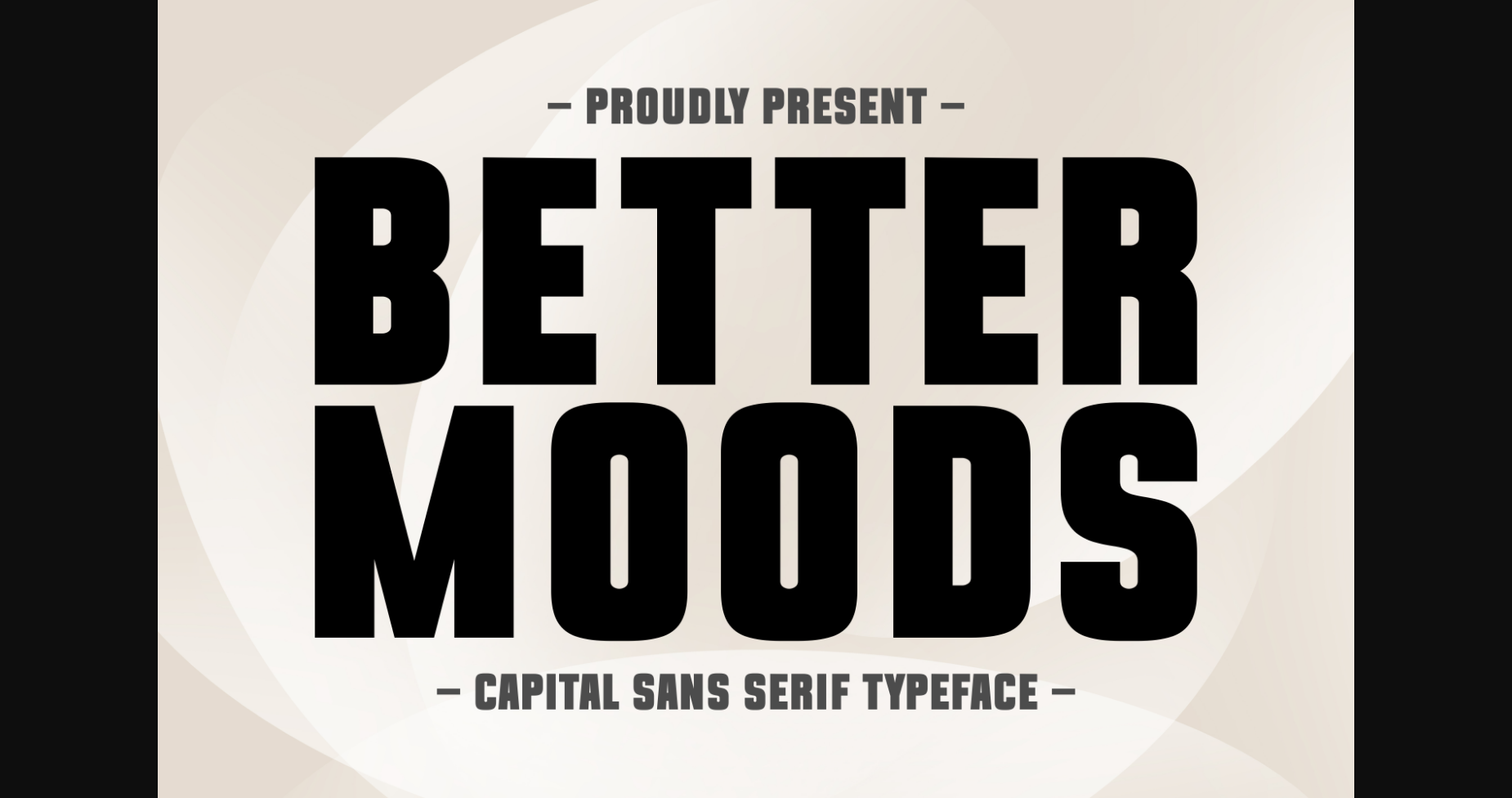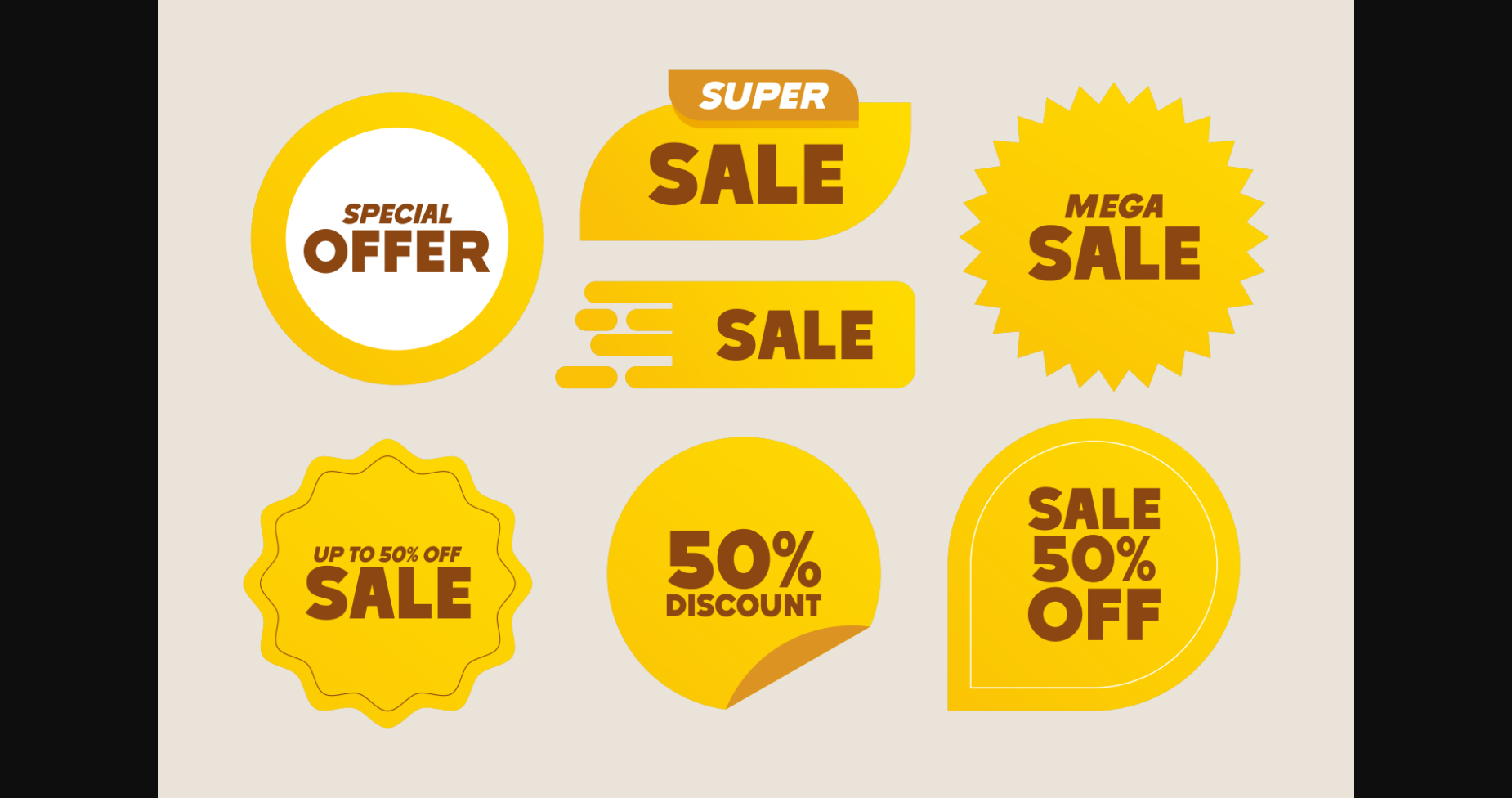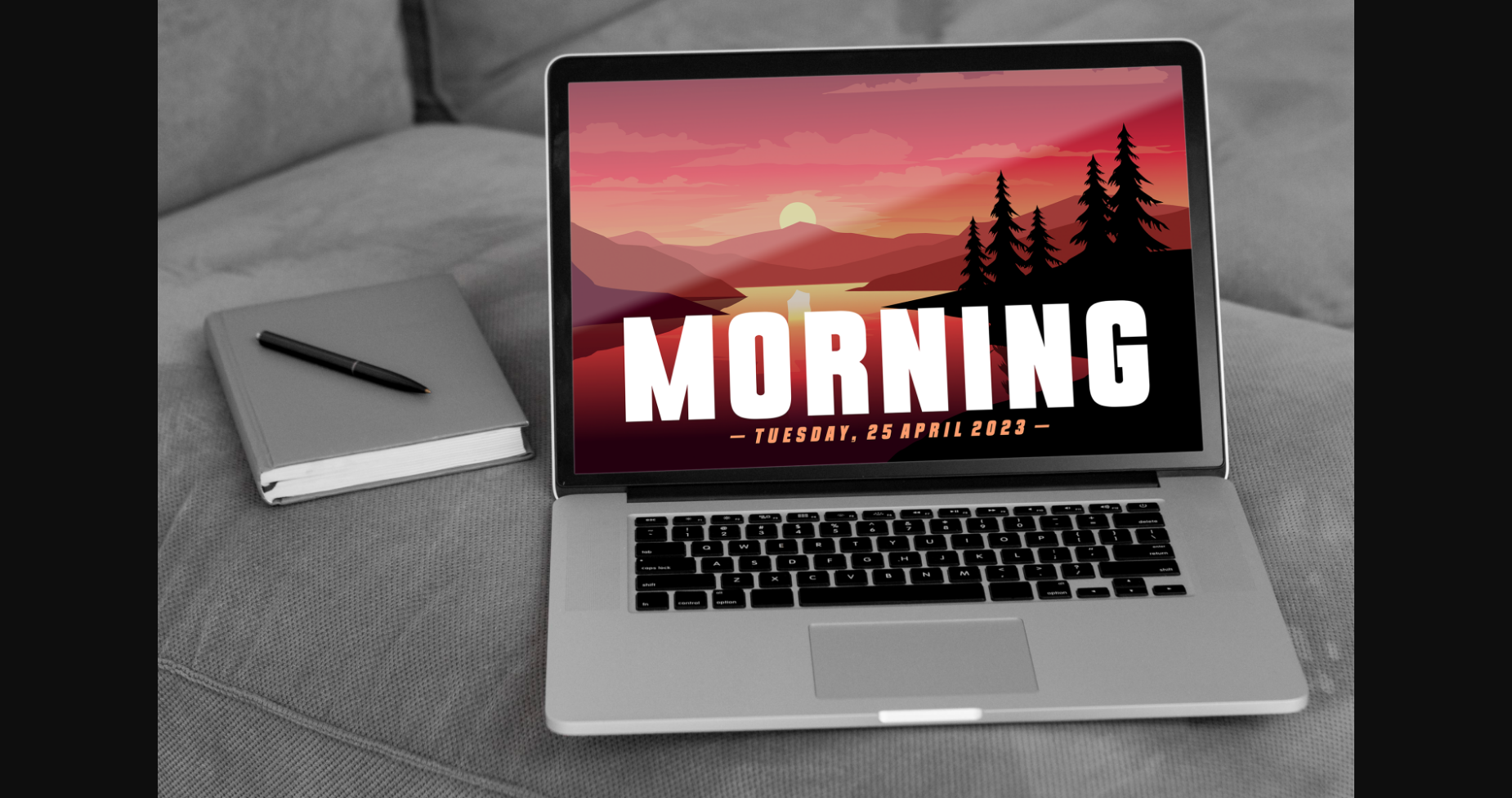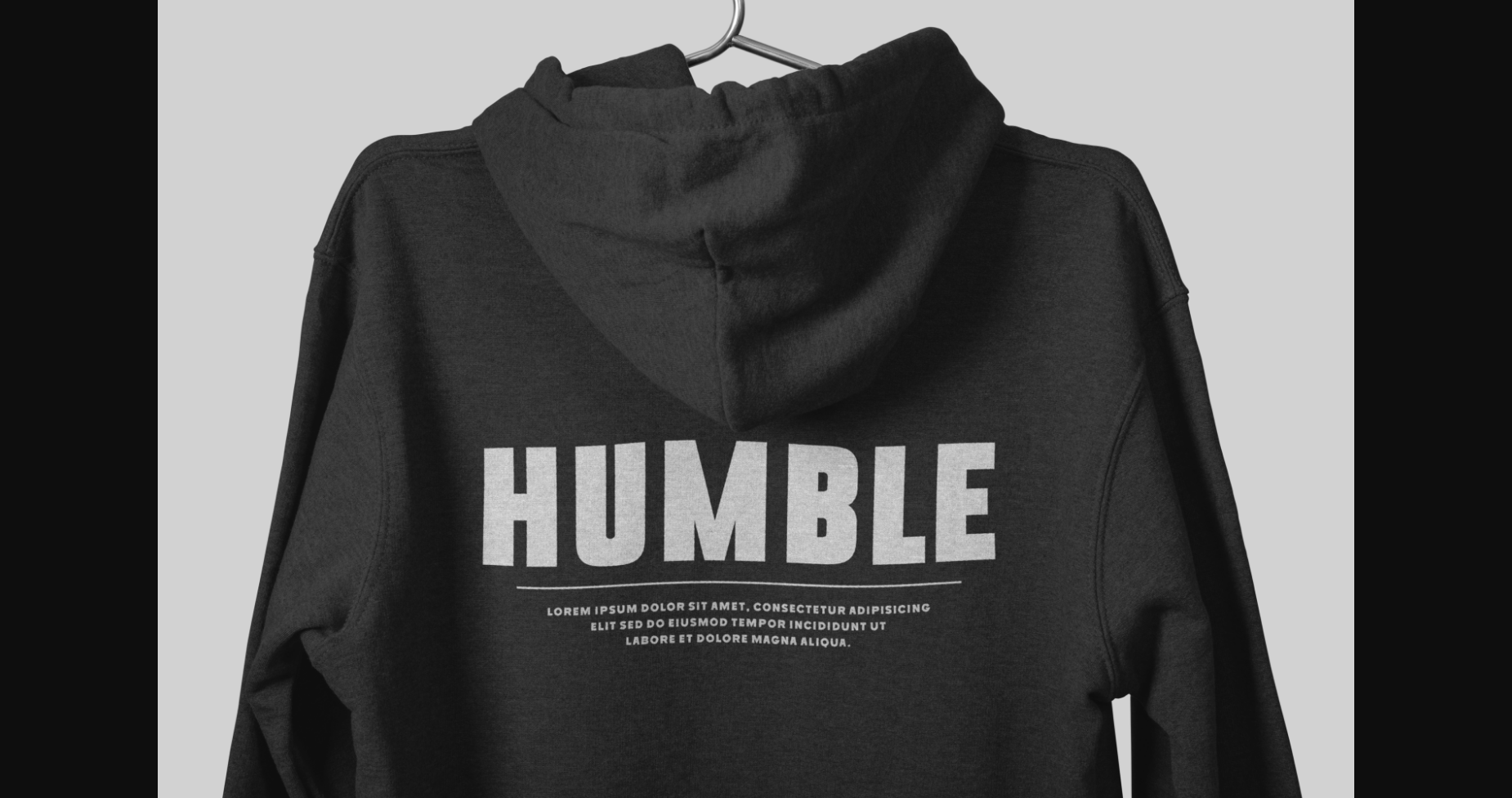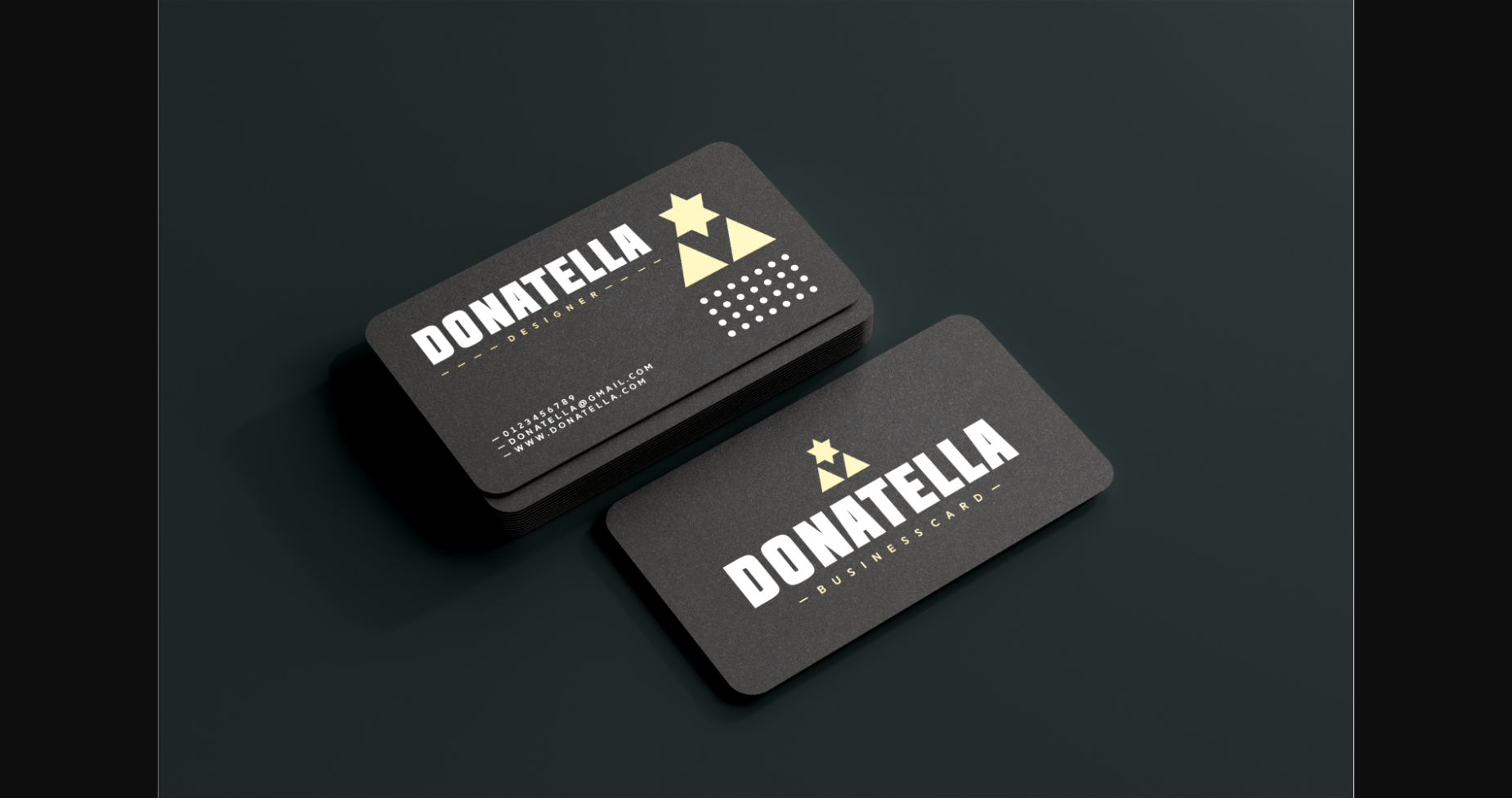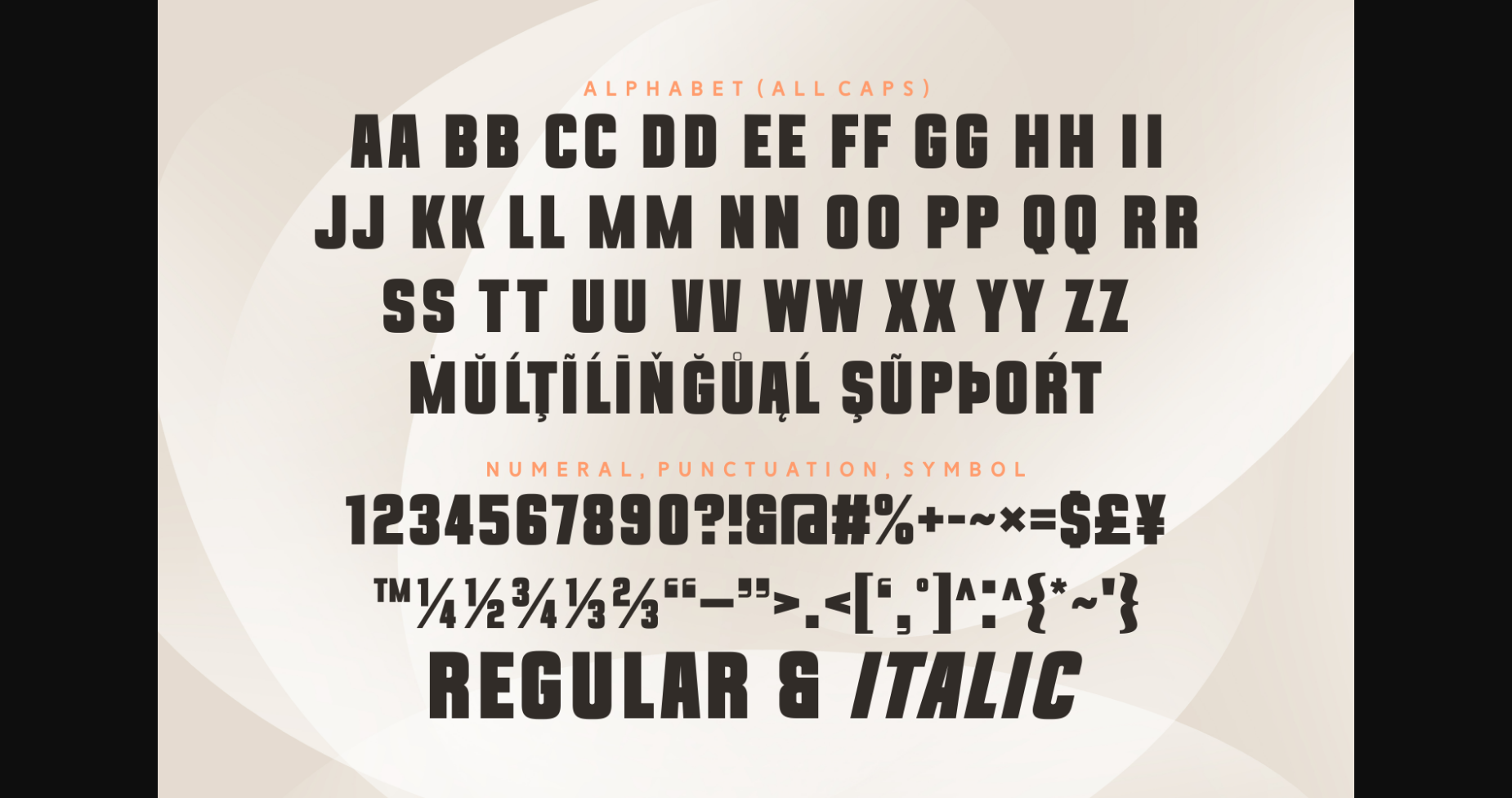
About Better Moods Font
Better Moods is a neat and bold sans serif font that exudes a sense of confidence and positivity. Its clean, straight lines and balanced letterforms create a sleek and modern appearance, while the consistent stroke weight and spacing make it easy to read at any size. The friendly and approachable character shapes and subtle details give Better Moods a distinctive and memorable appearance, making it perfect for branding, advertising, and editorial design that requires a bold and optimistic message.